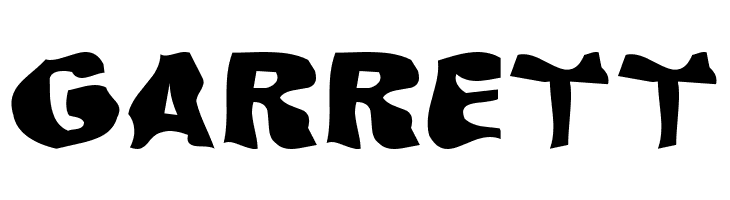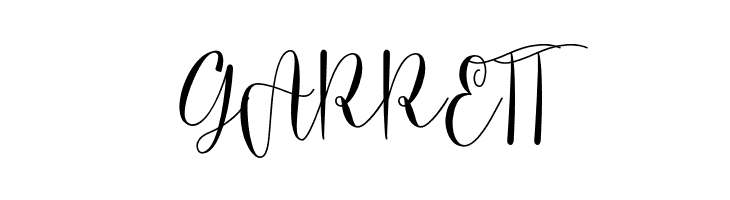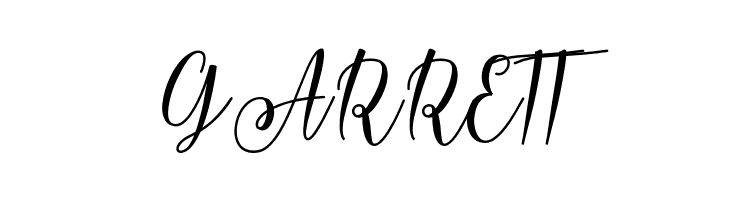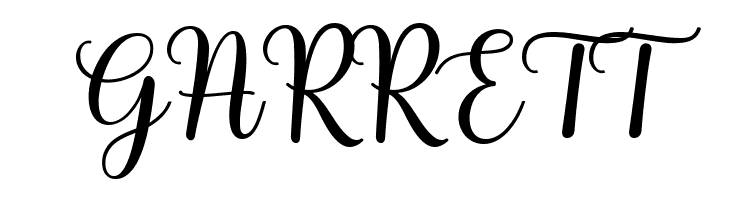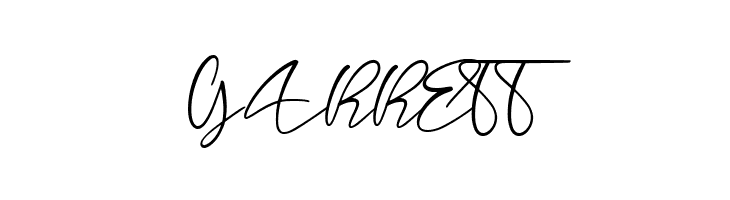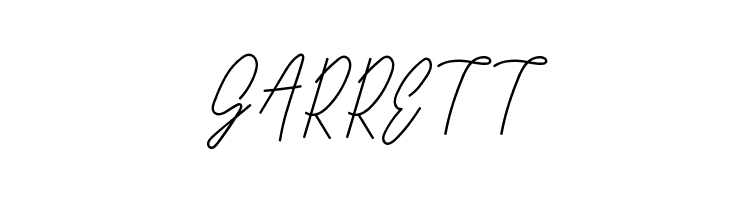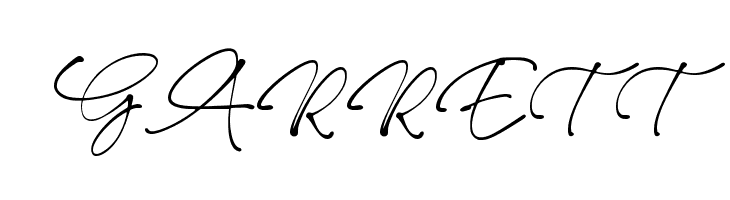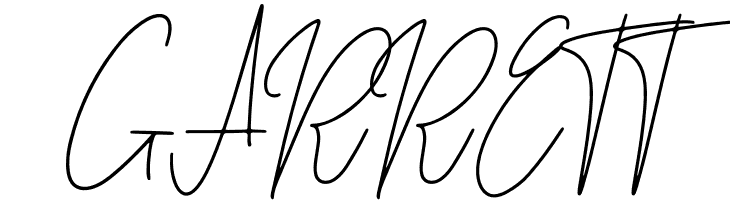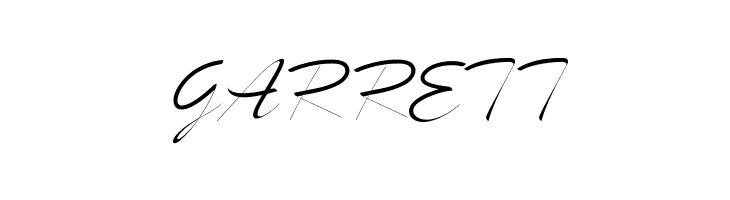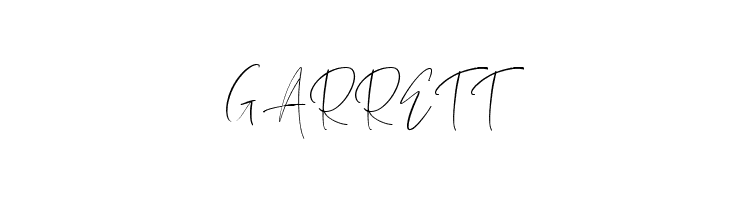
A graceful and fluid script font with a natural handwritten style.
An elegant script font with high contrast and graceful, flowing strokes.
A lively and elegant script font with flowing, interconnected letterforms.
A bold, brushstroke-style font with dynamic and expressive characters.
An elegant and fluid script font with a handwritten feel.
A graceful script font with flowing, interconnected letters and elegant flourishes.
An elegant, flowing script font with ornate uppercase letters and smooth, connected lowercase letters.
A bold, elegant script font with high contrast and flowing cursive letterforms.
An elegant script font with flowing, cursive strokes and graceful curves.
A charming and elegant script font with flowing, cursive letterforms.
Elegant and flowing script font.
A graceful and elegant script font with flowing, cursive letters.
A charming and elegant script font with fluid, cursive strokes.
A dynamic and expressive script font with flowing, interconnected letterforms.
A bold, expressive script font with a hand-drawn, artistic style.
A bold, expressive script font with high contrast and decorative flourishes.
A graceful and elegant script font with flowing cursive letterforms.
An elegant script font with flowing, interconnected characters and high contrast strokes.
A charming and elegant script font with fluid, connected letterforms.
A graceful, cursive script font with a natural, handwritten style.
An elegant script font with fluid, cursive strokes and a sophisticated appearance.
A lively and expressive script font with flowing, cursive letterforms and dynamic stroke variations.
A lively, cursive script font with bold, interconnected strokes.
A flowing, elegant script font with a natural handwritten style.
An elegant, high-contrast script font with a flowing, cursive style.
A casual, handwritten font with elegant, flowing strokes.